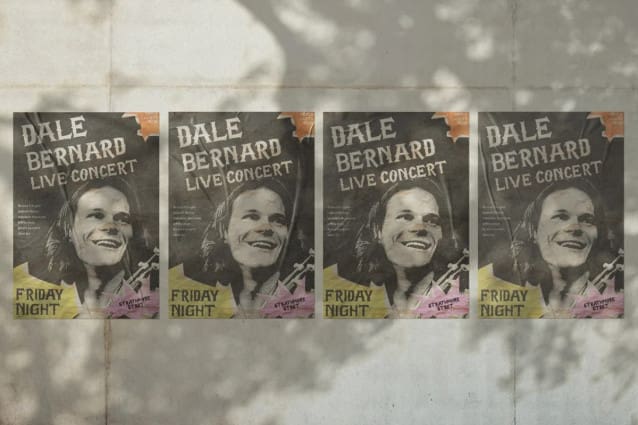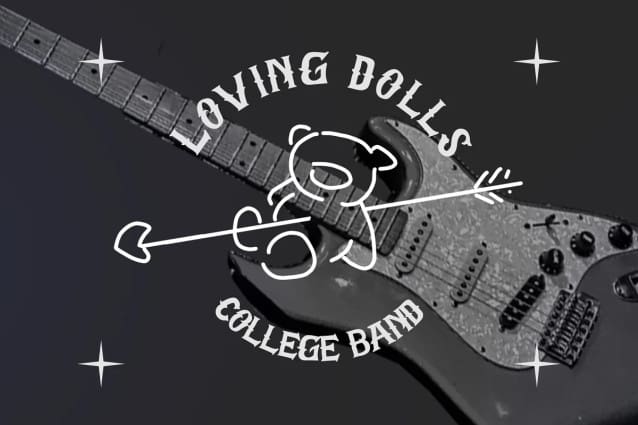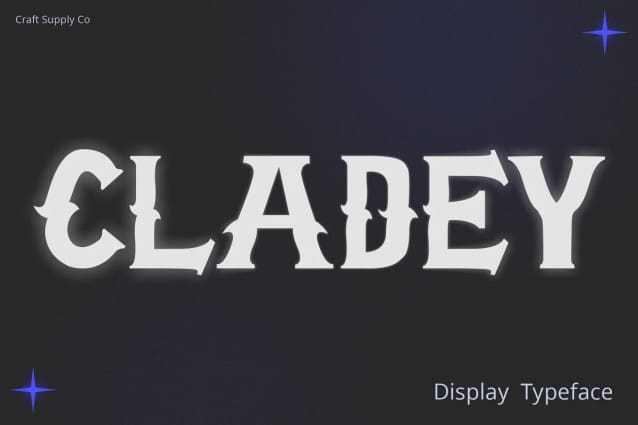
Cladey Display Font
Cladey Display Font is a remarkable Display Typeface with a unique twist that sets it apart. Its central serif feature is the key to its stunning appearance.
Cladey is not just visually stunning; it’s also perfectly tailored for attention-grabbing displays. Its distinctive serif at the center adds an extra layer of elegance that captivates the eye.
Going beyond its captivating display prowess, Cladey also boasts versatility. It seamlessly harmonizes with a wide range of creative projects, making it a font of choice for designers seeking flexibility.
Cladey ensures that your content exudes an aura of elegance and leaves a significant impact on your audience. It commands attention and resonates with viewers, ensuring a memorable experience.
In summary, Cladey Display Typeface is a font that truly stands out in the world of display typography. Its unique central serif feature adds stunning elegance to your projects. Whether it’s for branding, posters, or various creative endeavors, Cladey’s versatile and impactful design caters to a broad readership, ensuring your content leaves a lasting and striking impression.